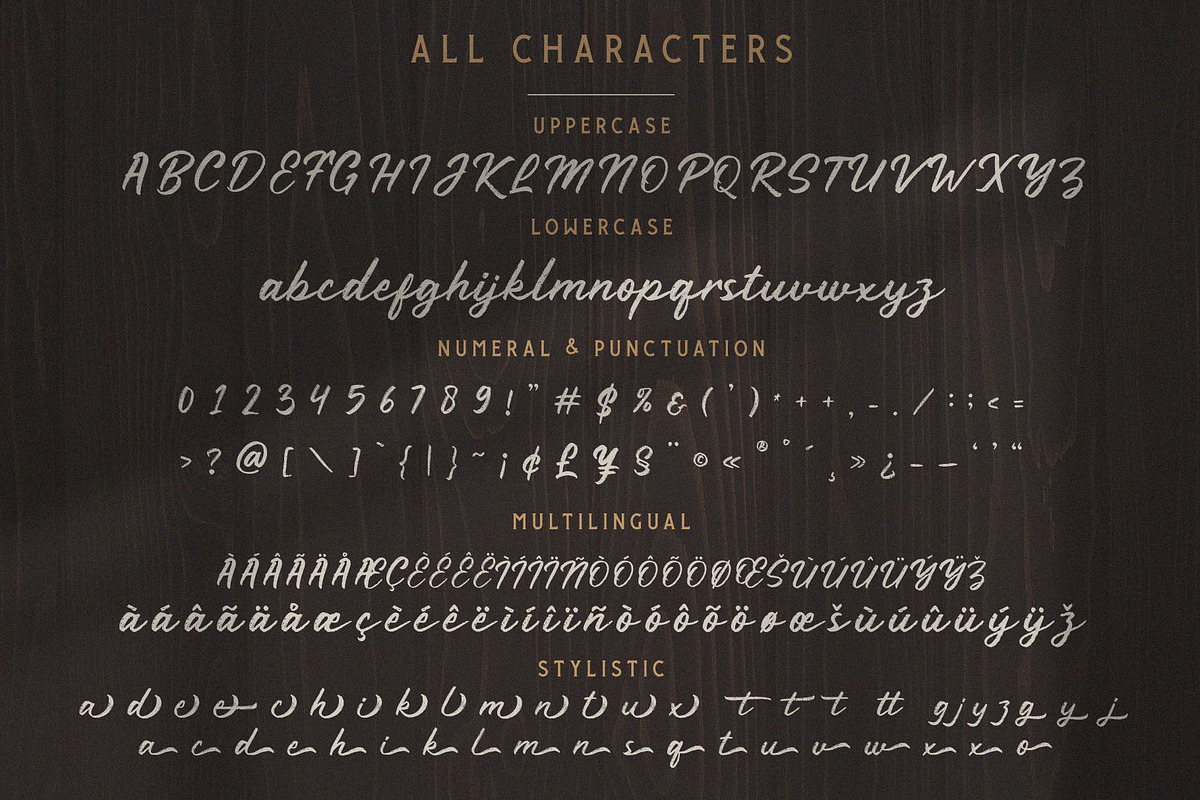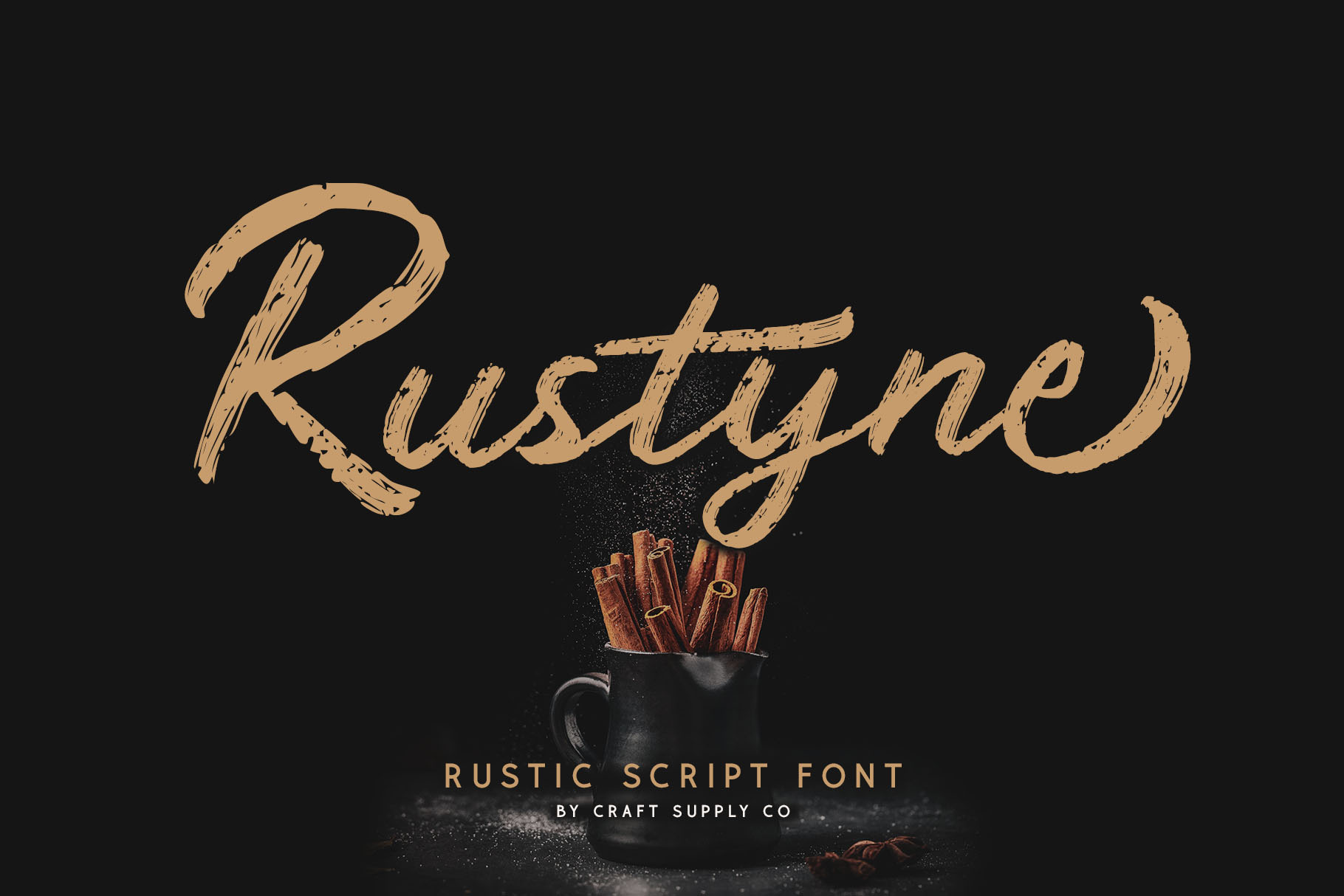
Rustyne - Rustic Script Font
Introducing New Font : Rustyne - Rustic Script Font
Rustyne - Rustic Script Font is an handwritten script font based on the expression of real handwriting. Rustyne - Rustic Script Font will work perfectly for fashion, e-commerce brands, trend blogs, wedding boutiques or any business that wants to appear upscale and chic.
Rustyne - Rustic Script Font also Suitable for Logo, greeting cards, quotes, posters, branding, name card, stationary, design title, blog header, art quote, typography, art, modern envelope lettering or book design, happening style like handdrawn design or watercolor design theme, craft design, any DIY project, book title, or any purpose to make your art/design project look pretty and trendy.
- Special Alternates ( a d e e c h i k l m n t u x t t t tt g j y z g y j a c d e h i k l m n s q t u v w x x o )
- Accents/Multilingual characters (AÀÁÂÃÄÅCÇDÐEÈÉÊËIÌÍÎÏNÑOØÒÓÔÕÖUÙÜÚÛWYÝŸỲŸÆŒßÞ)